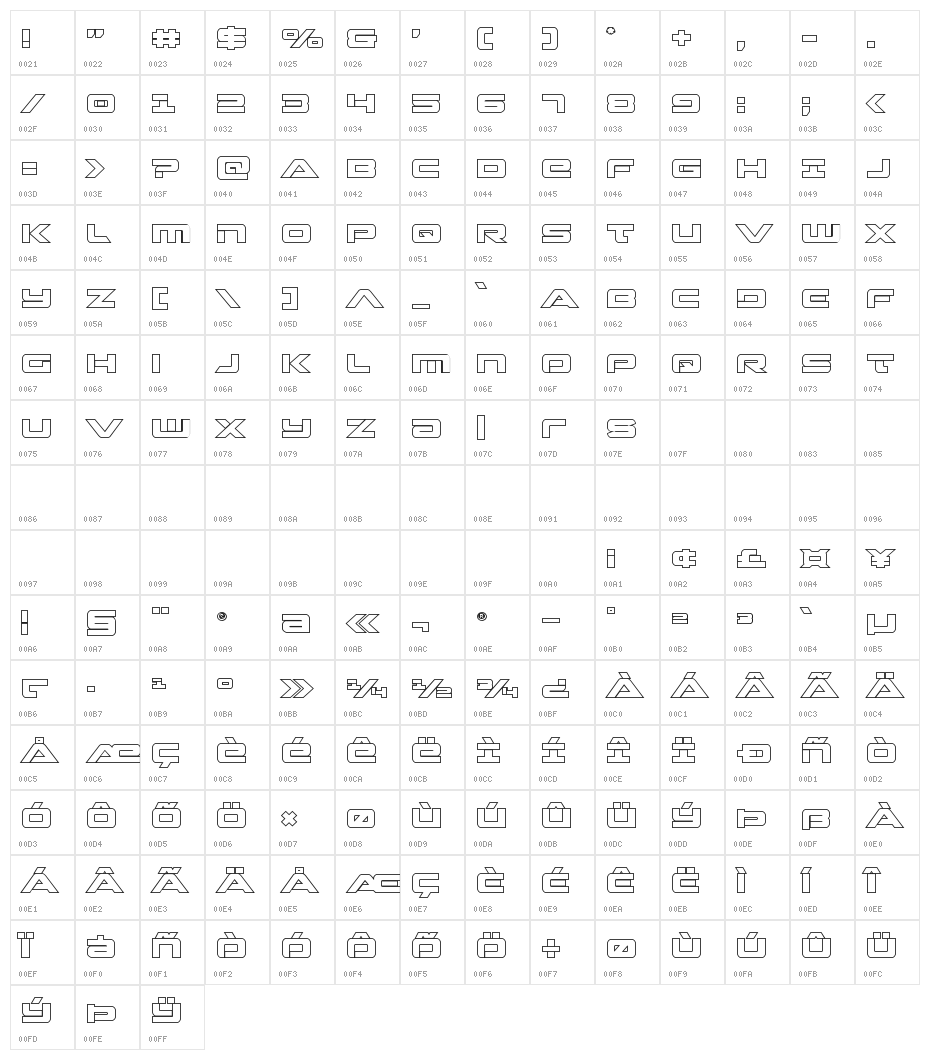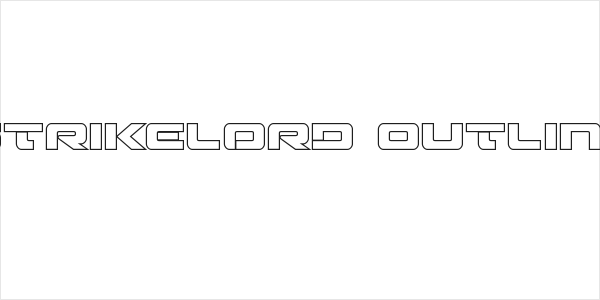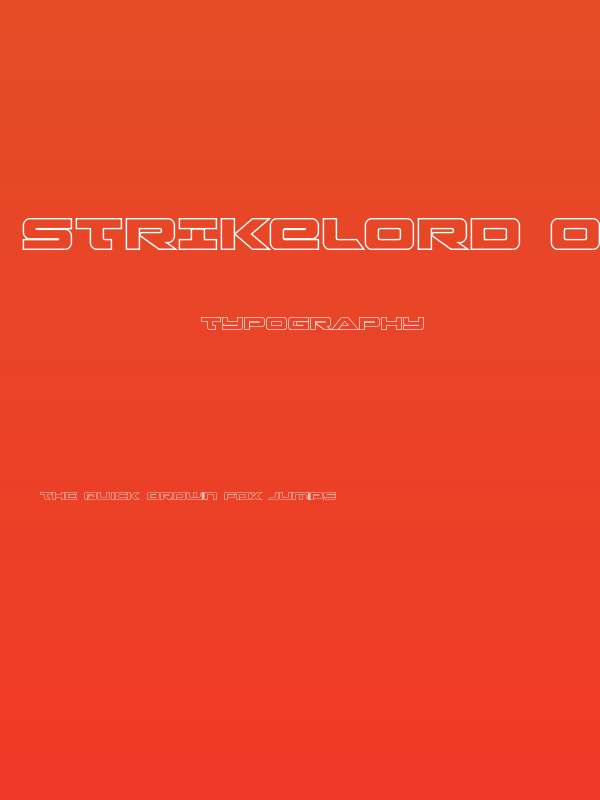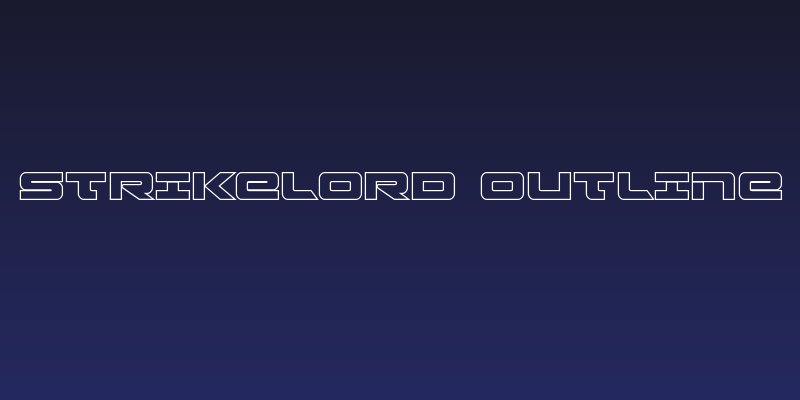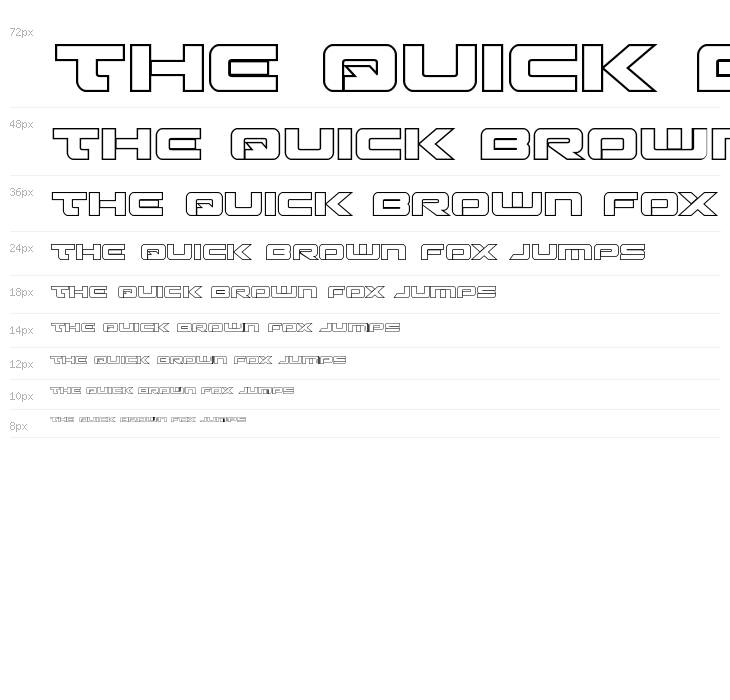
Strikelord Outline Font
Strikelord Outline Description
This font features a bold, geometric outline style that exudes a futuristic and modern aesthetic. Each character is crafted with precision, showcasing sharp angles and clean lines that create a sense of structure and formality. The uppercase and lowercase letters maintain a consistent height, contributing to a uniform appearance. The numerals and special characters are designed with the same attention to detail, ensuring a cohesive look across all glyphs. This font's outline design gives it a unique, eye-catching quality that stands out in any context.
| Proposed Projects | Ideal for projects requiring a modern and futuristic look, such as tech branding, sci-fi posters, video game titles, and digital media. |